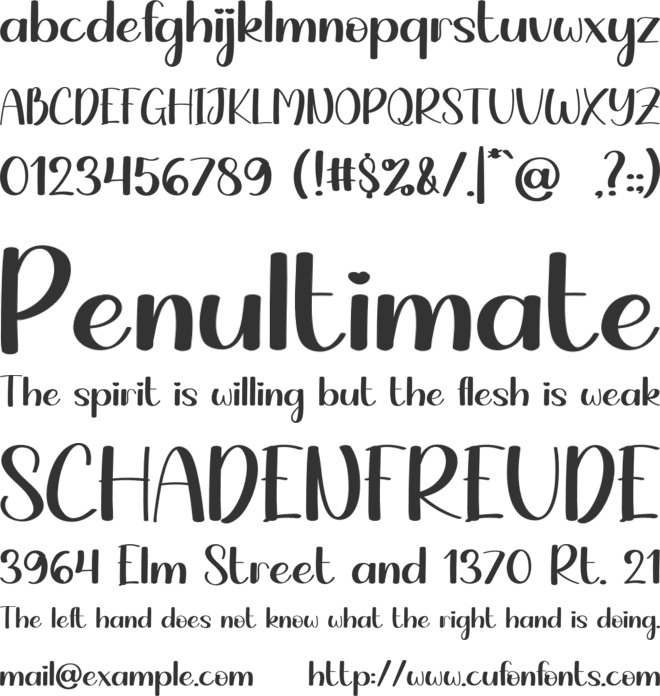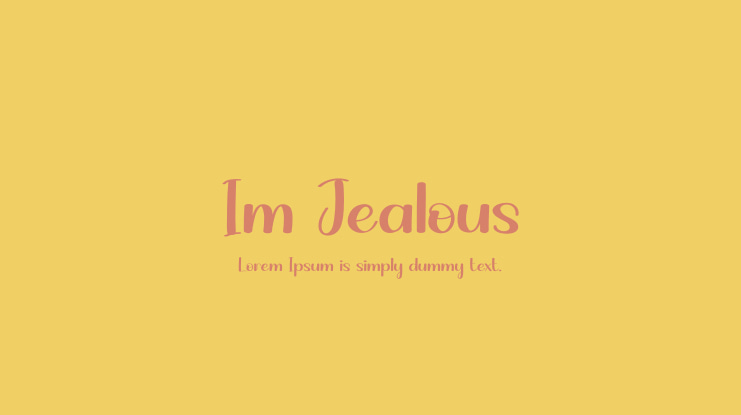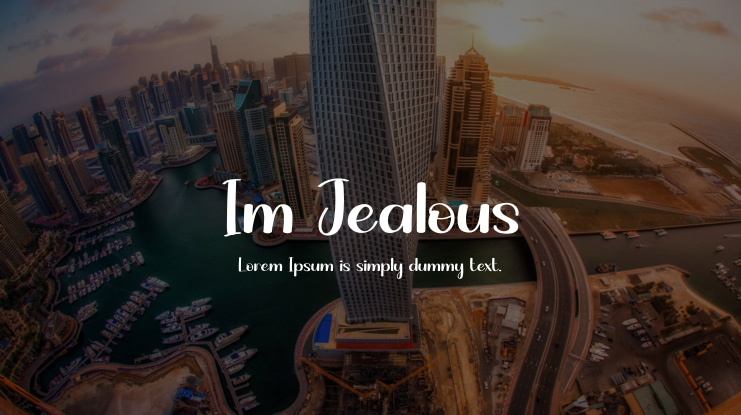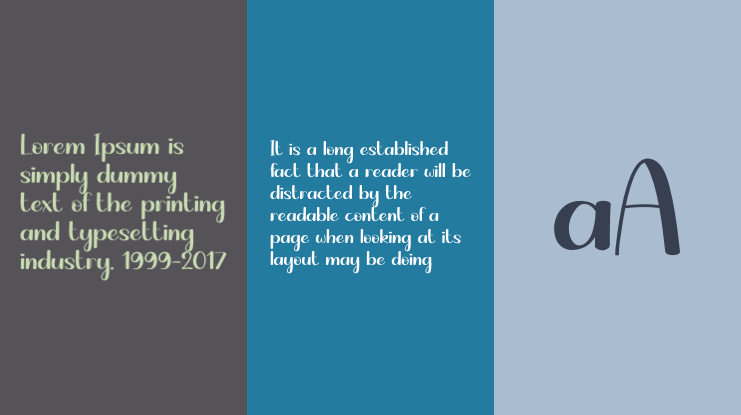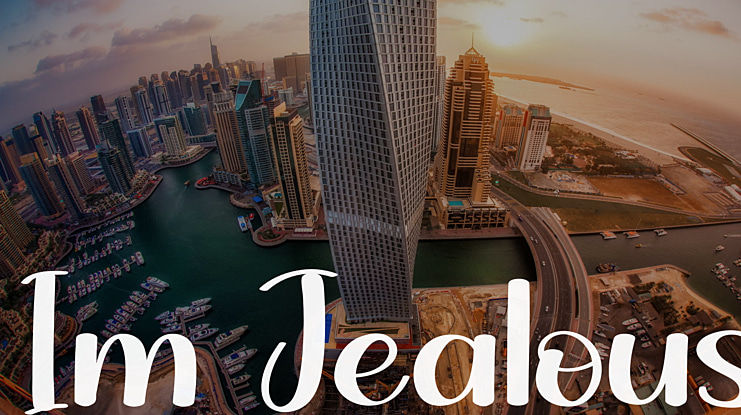
Im Jealous Font
I Am Jealous is a flowing and graceful script font. Fall for its chic style and use it to create gorgeous wedding invitations, beautiful stationary art, eye-catching social media posts, and much more!